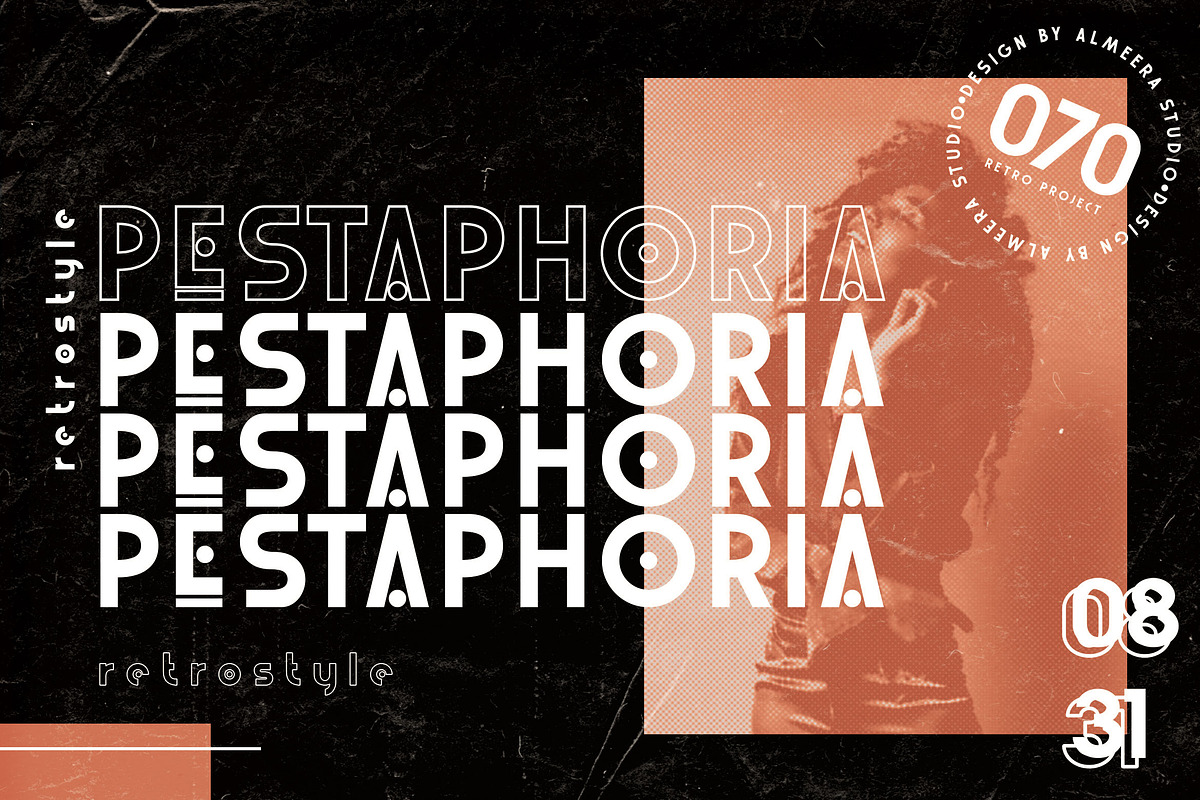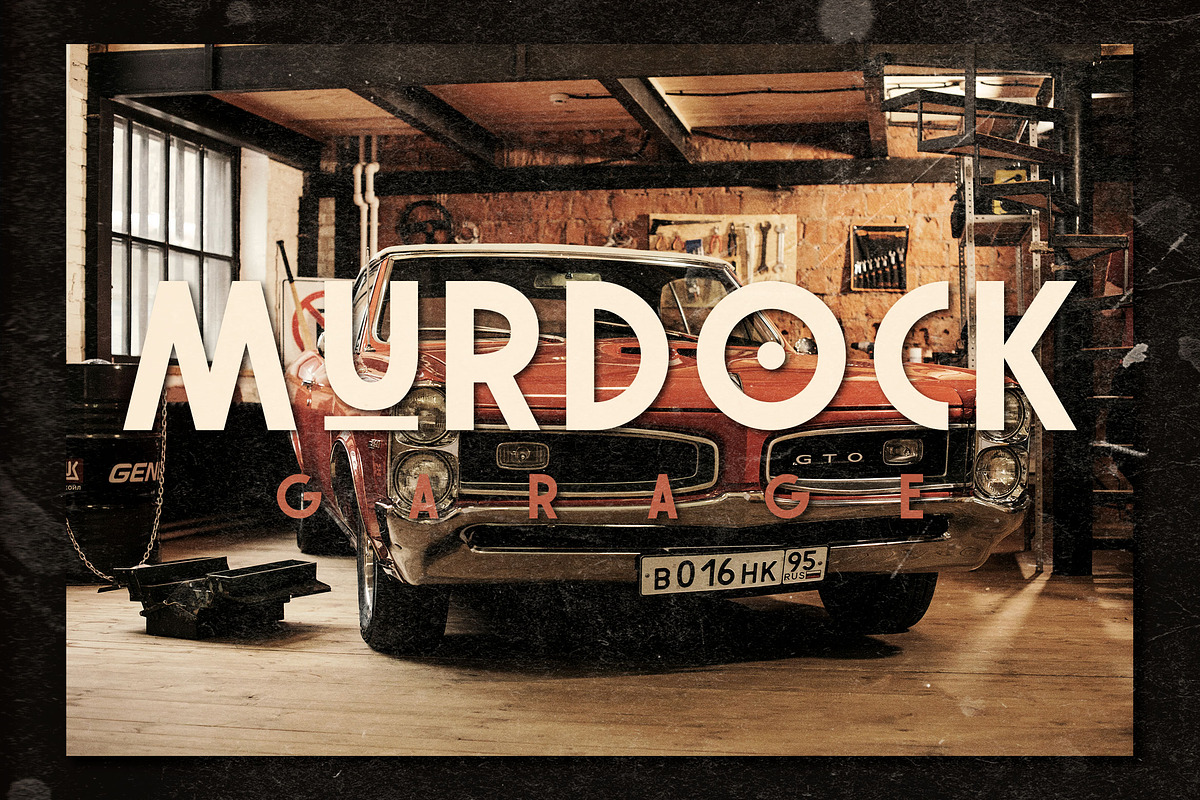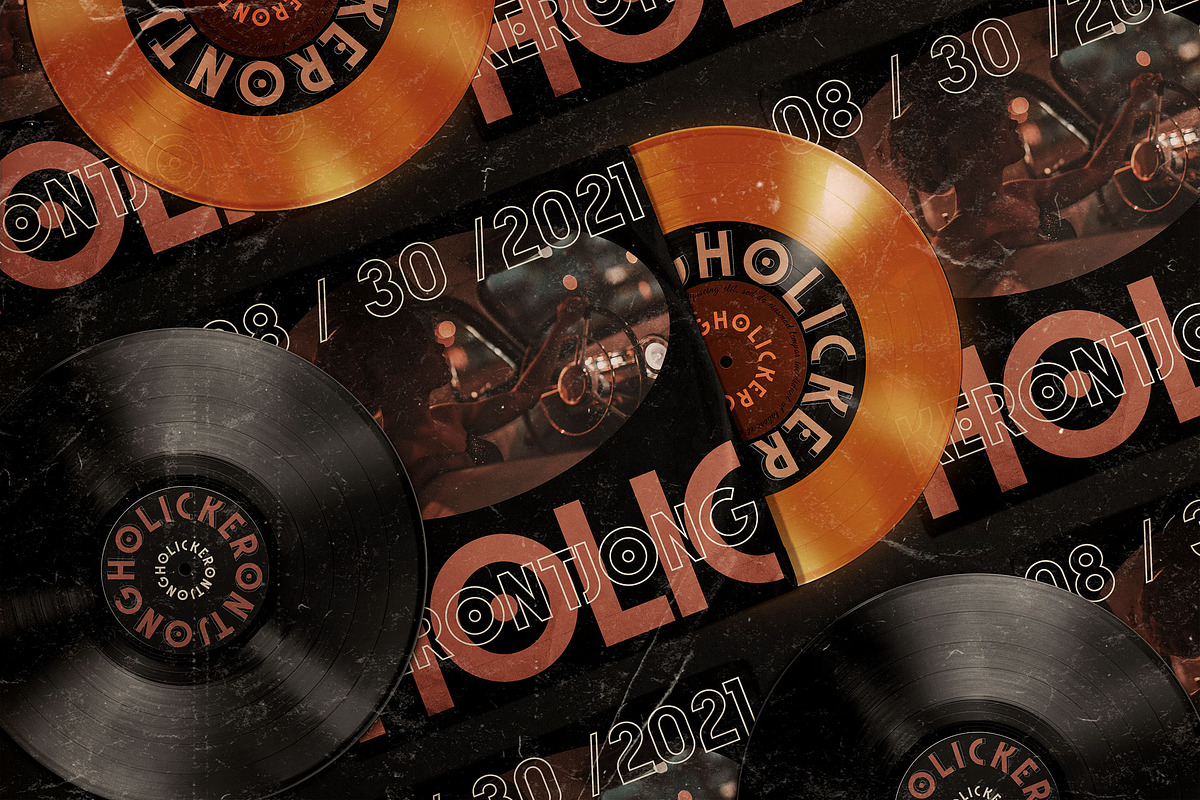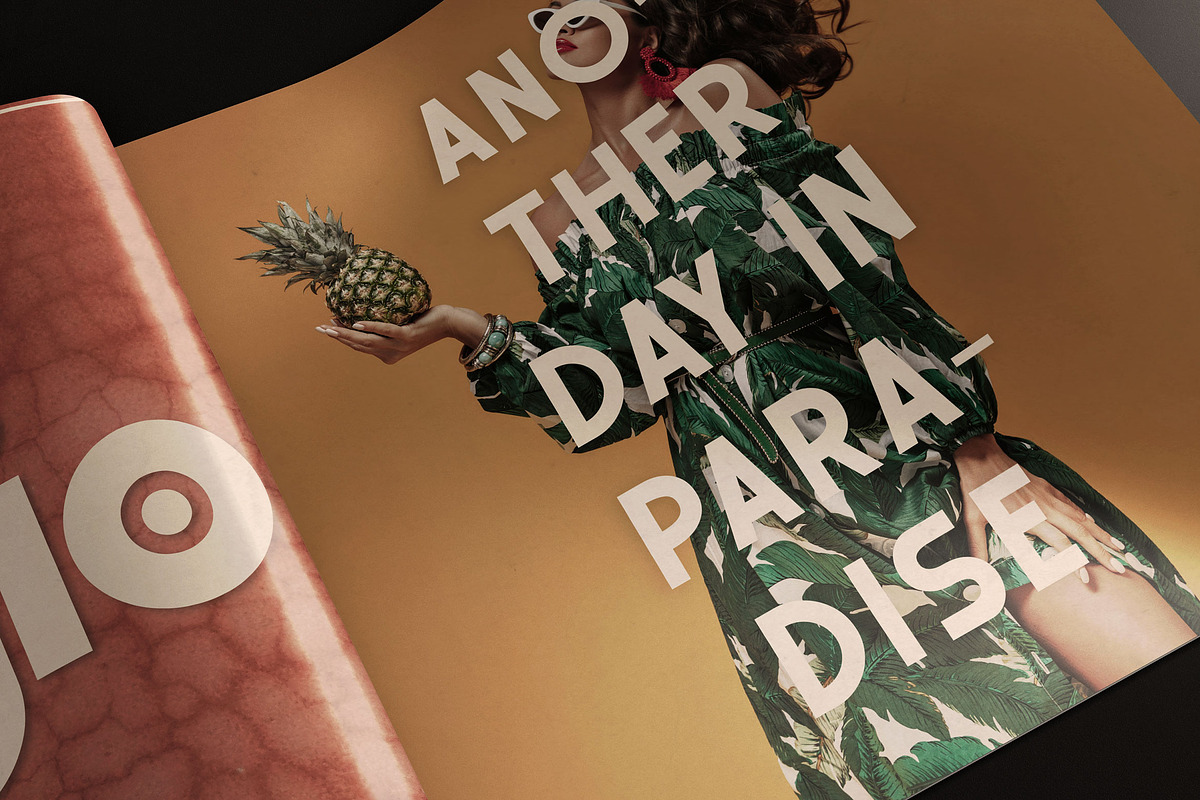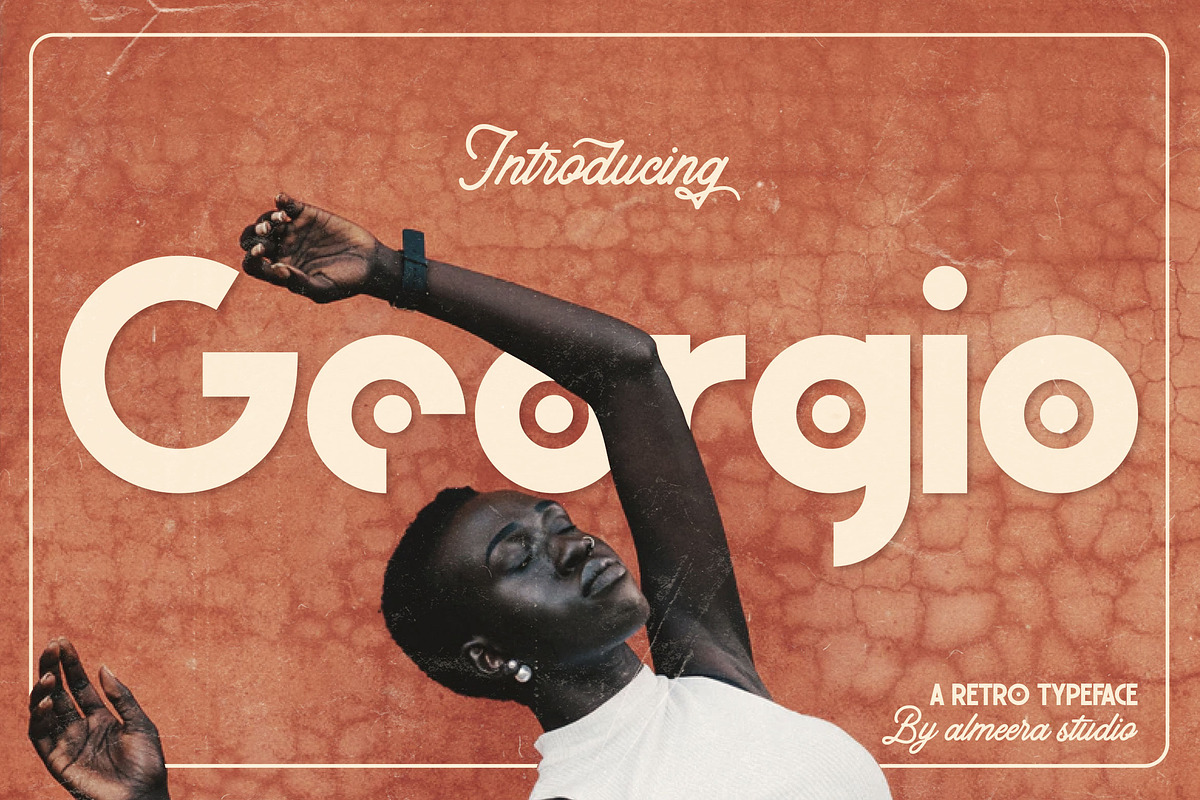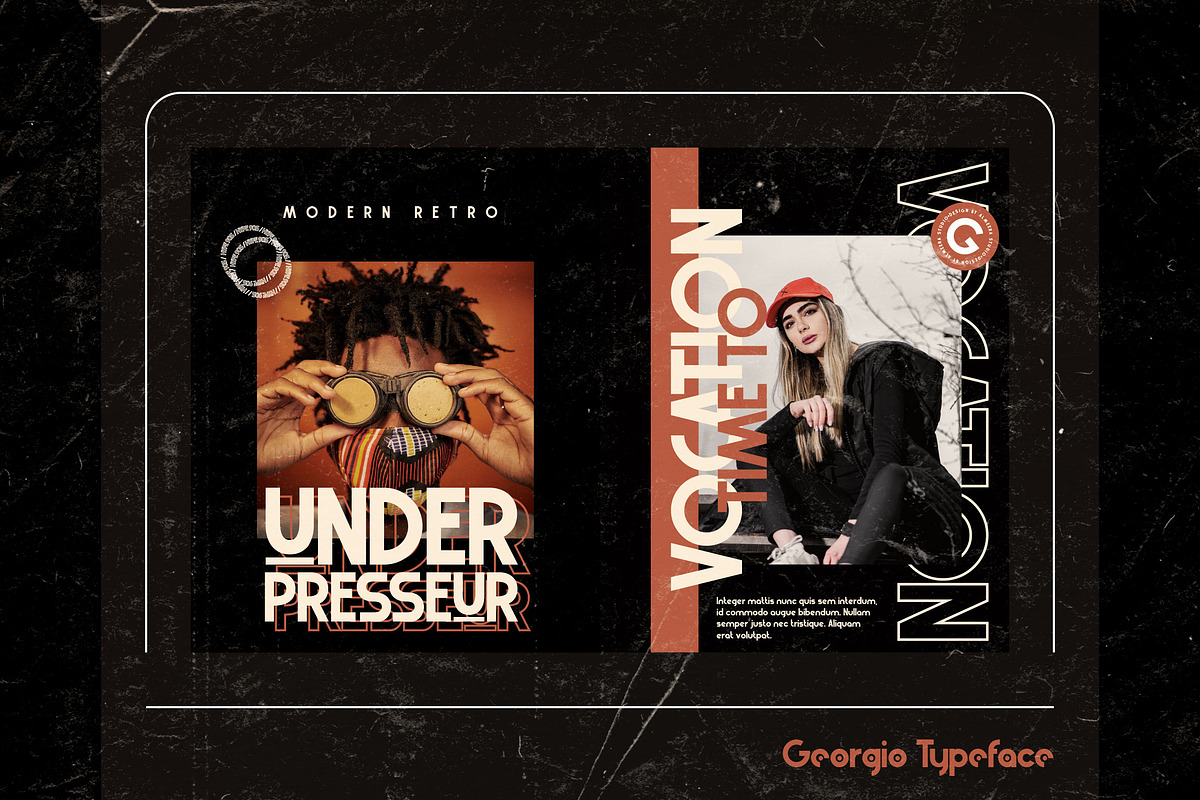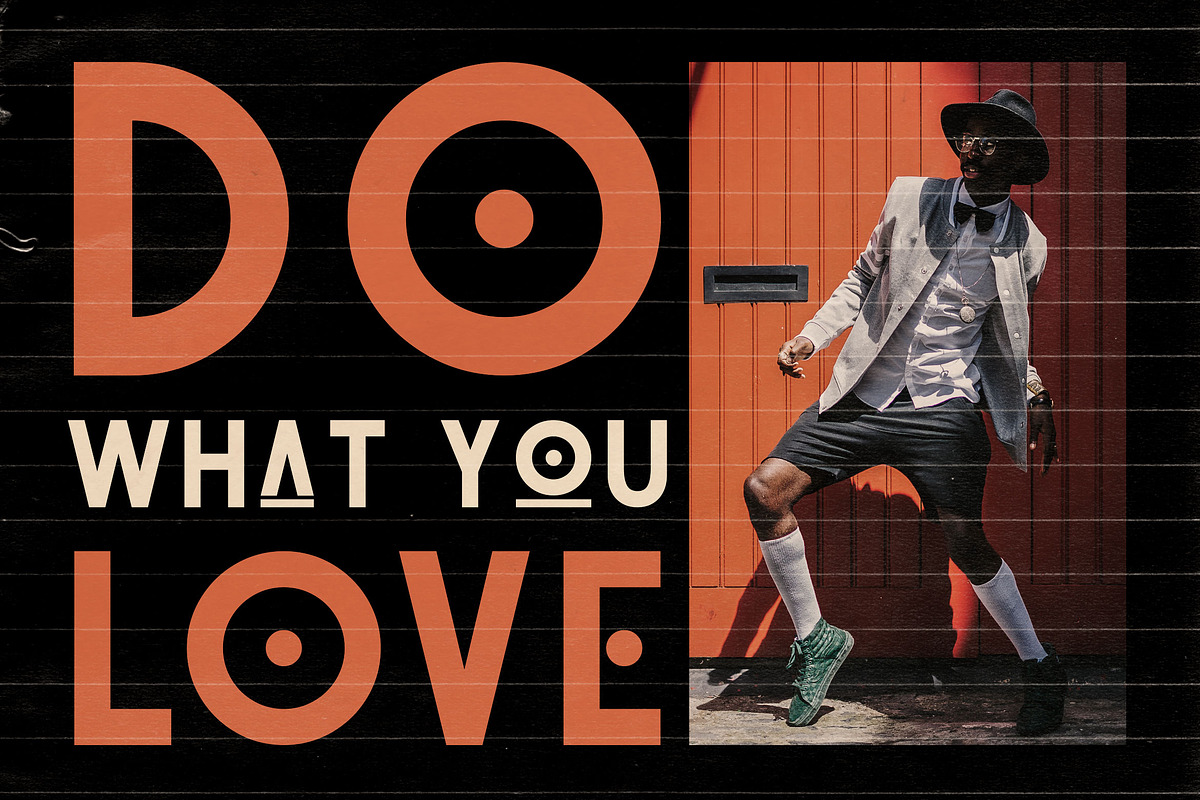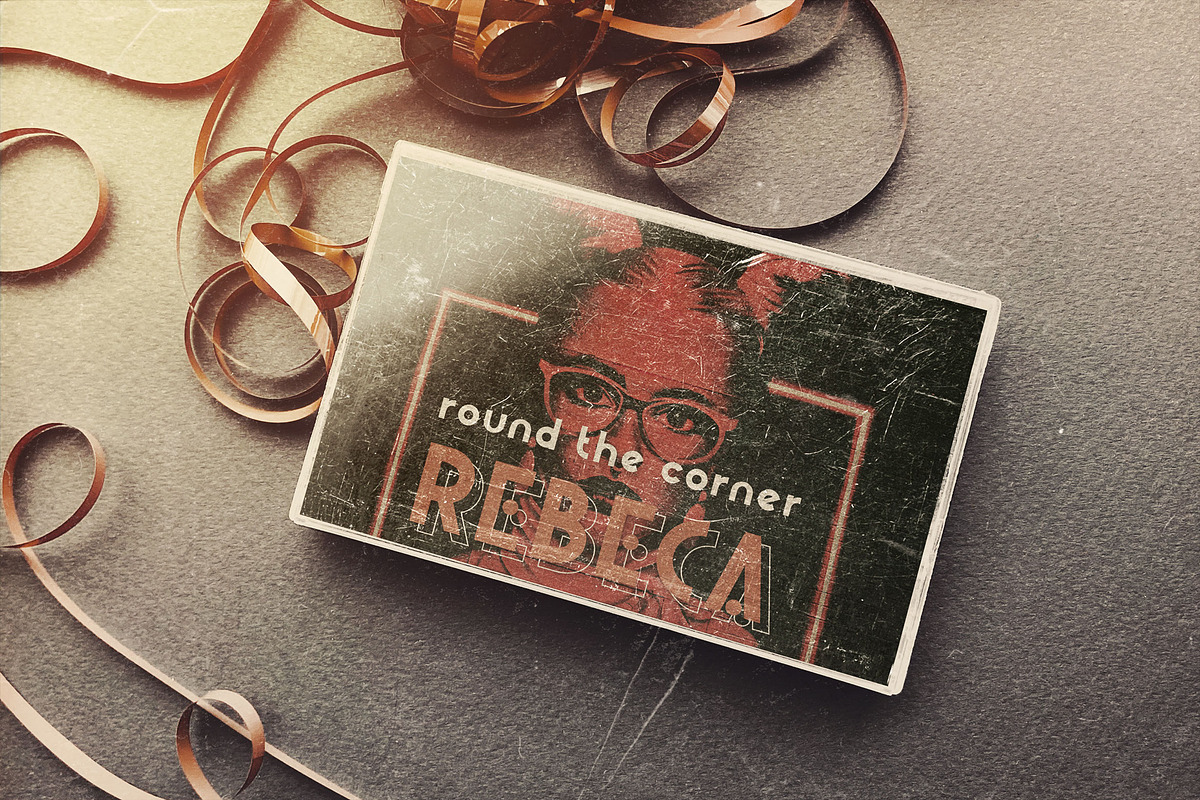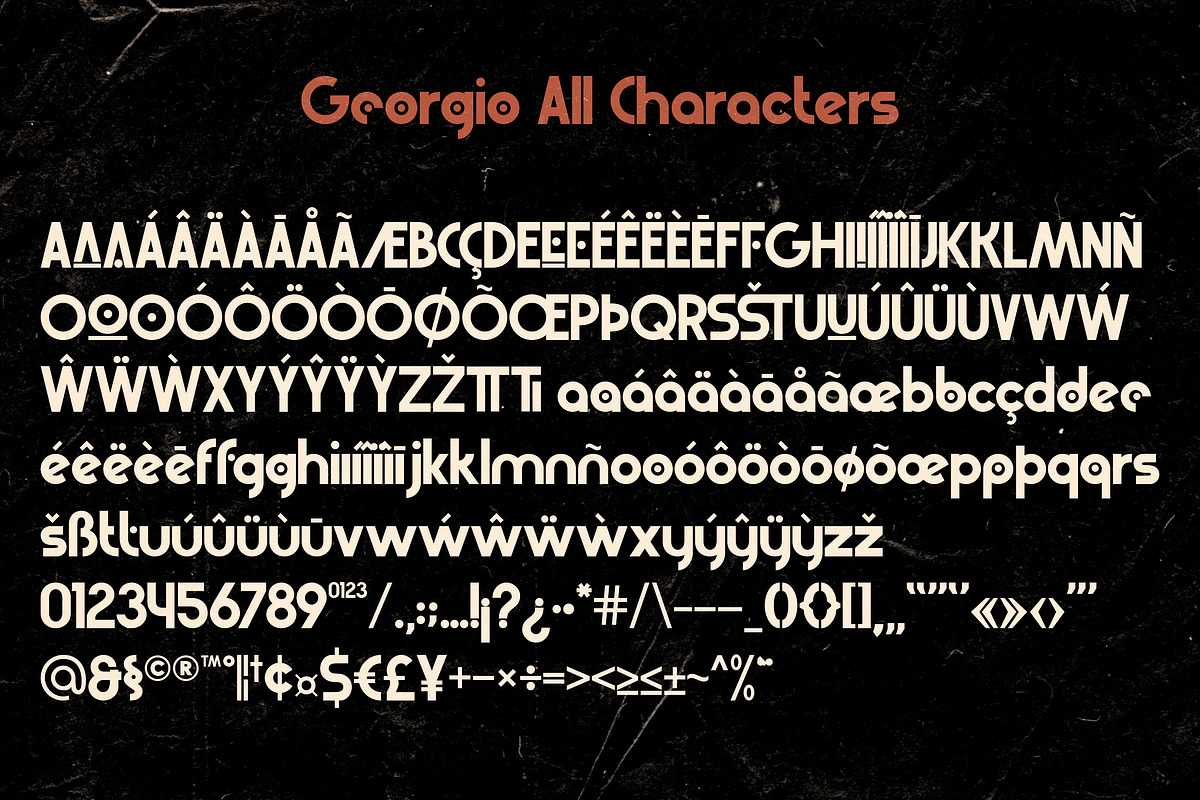
Georgio | Retro Typeface
Introducing the new Georgio Typeface!!! Georgio is a modern and retro san serif typeface. This font is both modern and nostalgic and works great for logos, magazine, social media. Already matched up and ready to be used together for your next design!
For those of you who are needing a touch of elegant, stylish, classy, vintage and modernity for your designs, this font was created for you!
Perfect for editorial projects, Logo design, Cover album, Branding, product packaging, magazine headers, or simply as a stylish text overlay to any background image.